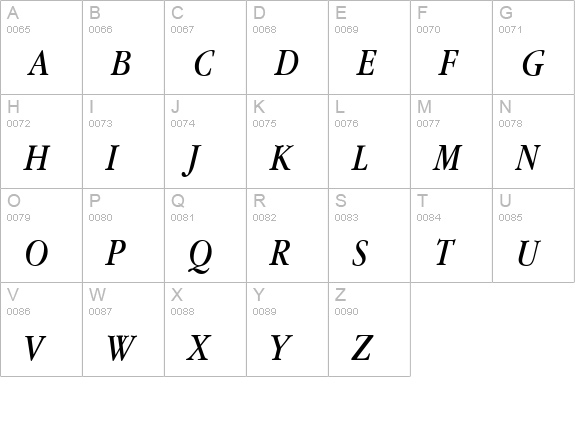
Apple Garamond BT Book Italic Font Details
Apple Garamond BT Book Italic is a comfortable, highly readable, italic variant in the Apple typeface family \xE2\x80\x94 well suited to long-form body text, articles, and editorial content.
Apple Garamond BT Book Italic is a classic and elegant font that exudes sophistication and style. With its slanted and graceful italicized form, this typeface adds a touch of flair to any design project. Perfect for conveying a sense of refinement and class, Apple Garamond BT Book Italic is ideal for use in various applications, from branding to editorial design. The beauty of Apple Garamond BT Book Italic lies in its versatility and timeless appeal. Whether you're looking to create a striking headline or add a touch of elegance to your website, this font will elevate your designs to new heights. Its subtle curves and delicate lines make it a standout choice for those seeking a sophisticated and polished look. What's even better is that Apple Garamond BT Book Italic is available for free download at FontsMarket.com. This means you can easily access this exquisite font and incorporate it into your projects without any cost. Don't miss out on the opportunity to enhance your designs with the luxurious charm of Apple Garamond BT Book Italic. Download it now and elevate your creative work to the next level.